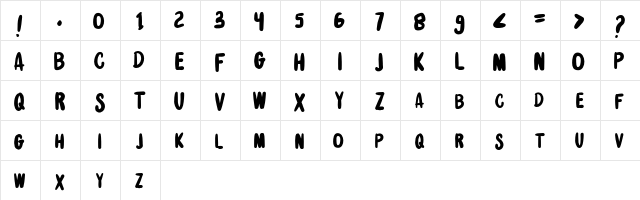
Strength Night Regular
Design Context for Strength Night Typeface
Strength Night is a composed and adaptable typeface that performs quietly and consistently across a wide range of design contexts.
Pro Tip: Pair Strength Night with a font of contrasting weight or personality to build a more expressive typographic hierarchy.